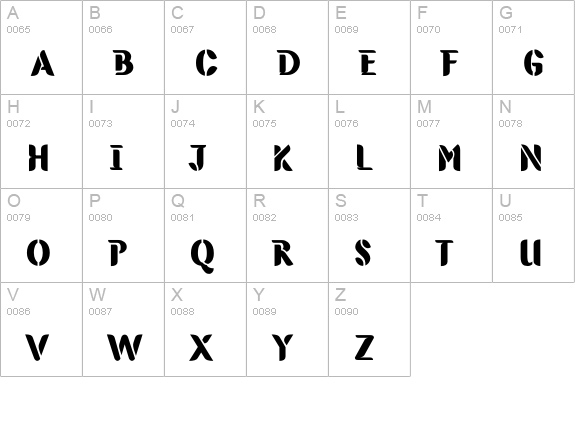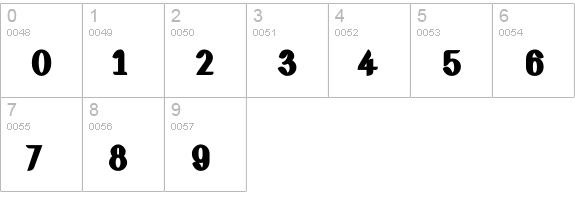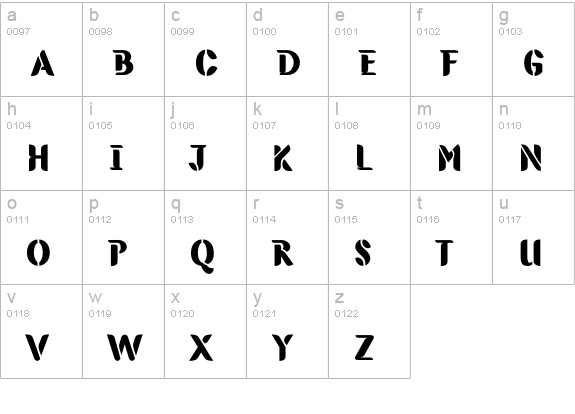
GreenTerrorCargoBay Font Details
Introducing GreenTerrorCargoBay font, a bold and striking typeface that exudes power and modernity. This unique font is perfect for making a statement in your designs, whether you're working on branding, posters, or websites. With its sharp edges and futuristic aesthetic, GreenTerrorCargoBay demands attention and leaves a lasting impression. The best part? GreenTerrorCargoBay is available for free download at FontsMarket.com. Embrace the boldness of this font and take your designs to the next level. Stand out from the crowd and make a statement with GreenTerrorCargoBay font. Download it now and unleash your creativity!